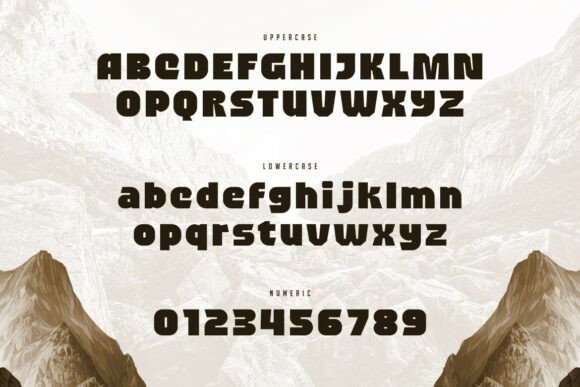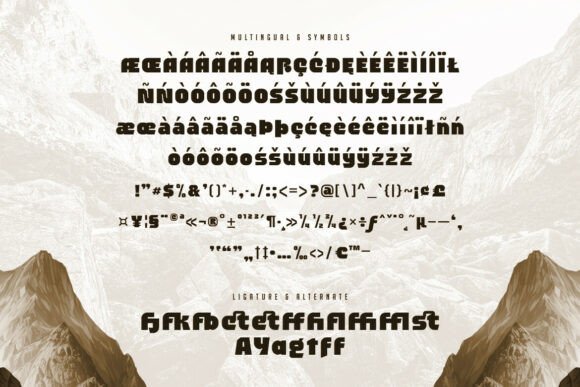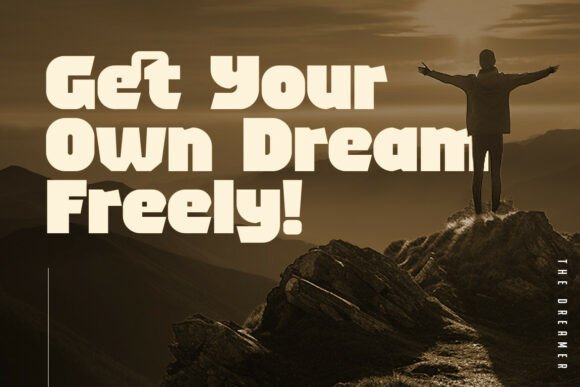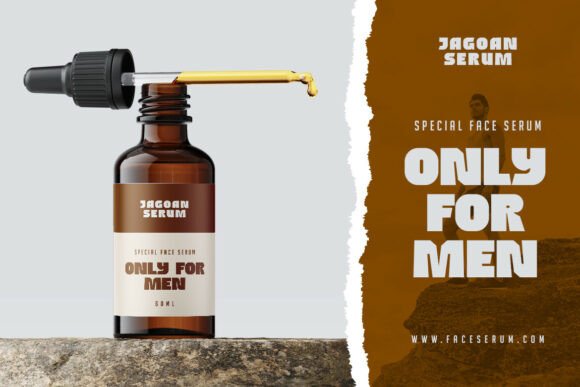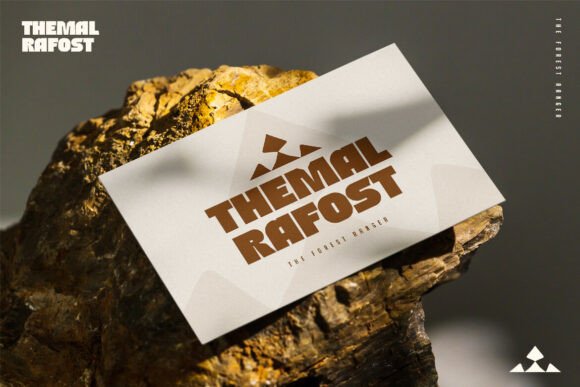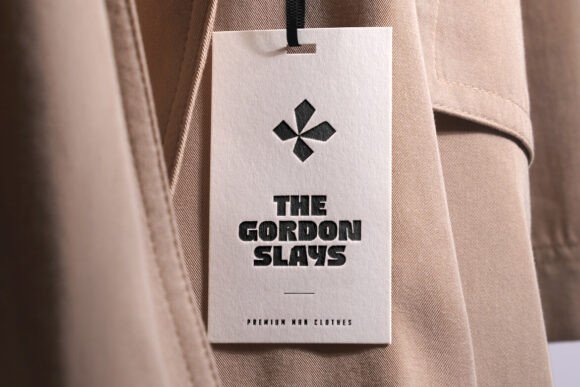
Introduction to Rockbay Font
Have you ever been working on a creative project, pouring your heart and soul into a design, only to feel like it’s just missing that one special something to make it truly stand out? For designers, this is a common conundrum. But what if you had a secret weapon at your disposal, a game-changing design resource that could elevate your work to new heights? Enter the Rockbay Font, a bold, heavyweight display font that’s about to revolutionize the way you think about typography.
With its extra-thick strokes, slightly rounded edges, and compact design, the Rockbay Font is the ultimate tool for designers looking to project energy, durability, and a dynamic modern aesthetic. Whether you’re working on a high-profile advertising campaign or a personal creative project, this font is sure to deliver pure, unadulterated strength and attention-grabbing power.
Key Features of Rockbay Font
- Comes in a transparent background, allowing for easy customization and integration into various design contexts.
- Designed with a large character set, including a wide range of languages and symbols, making it a versatile design resource.
Honest Review: Rockbay Font
I recently had the chance to work with the Rockbay Font, and I must say it’s been a game-changer for my creative projects. The font is a high-quality addition to any design resource, offering a clean and modern aesthetic that’s perfect for a wide range of applications.
One of the things that really stood out to me was the transparency of the background, making it incredibly easy to overlay on top of images or other design elements. This feature has saved me so much time in the long run, and I appreciate the thoughtfulness that went into designing this aspect of the font.
Here are a few things that I think work particularly well with the Rockbay Font:
- ✨ Clean and modern aesthetic: The font is perfect for any project that needs a touch of sophistication.
- ✨ Versatility: The Rockbay Font can be used for everything from logos to typography-heavy designs.
- ⚠️ Limited character set: While the font is incredibly versatile, the character set is somewhat limited, which can be a problem for designers working with non-English languages.
- ⚠️ No bold or italic options: While the font is available in a range of weights, there aren’t any bold or italic options available, which can make it difficult to add emphasis to certain design elements.
Overall, I’m really impressed with the Rockbay Font, and I think it’s a great addition to any design resource. While it may have a few limitations, I think the benefits far outweigh the drawbacks, and I would highly recommend it to any designer looking for a high-quality font to add to their toolkit.
Tips for Getting the Most Out of Rockbay Font
For optimal results, use Rockbay Font on a transparent background to create a clean and modern design. Experiment with different font sizes and styles to find the perfect combination for your project. With its high-quality design and versatility, Rockbay Font is a valuable addition to any design toolkit.
Common Use Cases for Rockbay Font
Rockbay Font is ideal for a variety of creative projects, including logos, business cards, brochures, and social media graphics. Its modern design and high-quality look make it perfect for businesses and individuals looking to establish a professional brand identity.